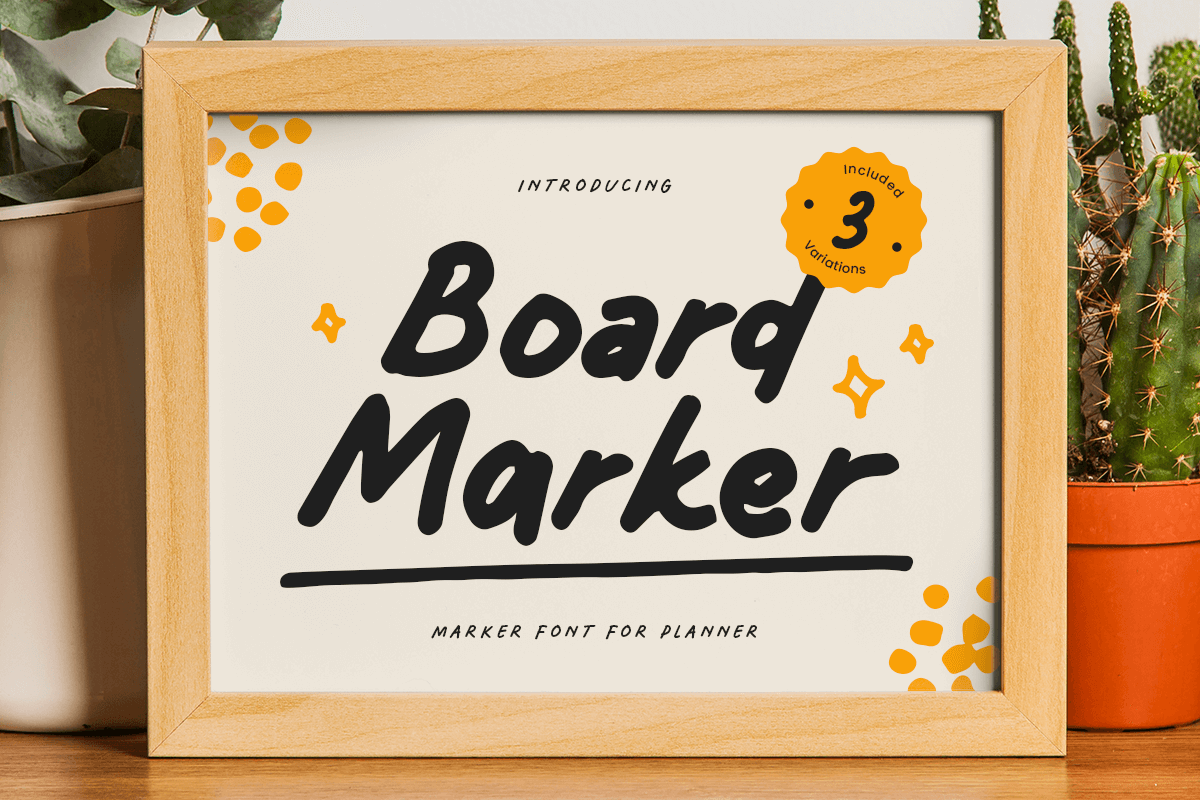
Board Marker
-Marker Font For Planner
Board Marker
Board Marker is a Marker Font that’s perfect for Planner, or Merchandise. This font specially crafted for your planner or design projects such as banner, poster, flyer, website design, product packaging, merchandise, pillow print and so many more with easy to use but standing out results are so amazing. Enjoy to Design any your needs with standing out, unique, and authentic feels.